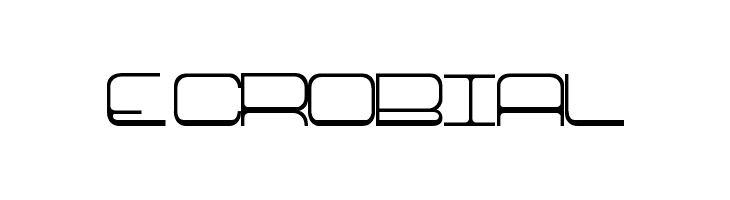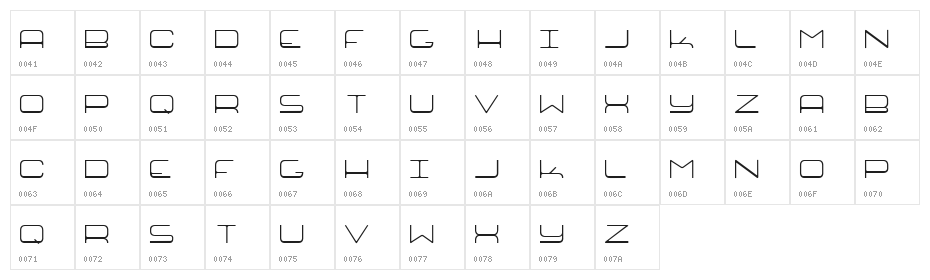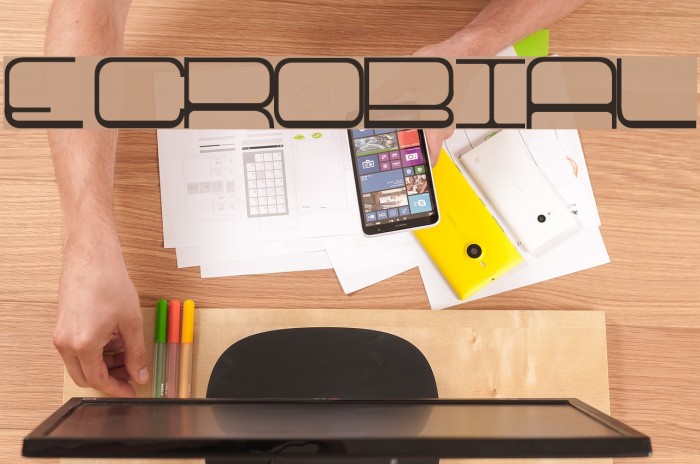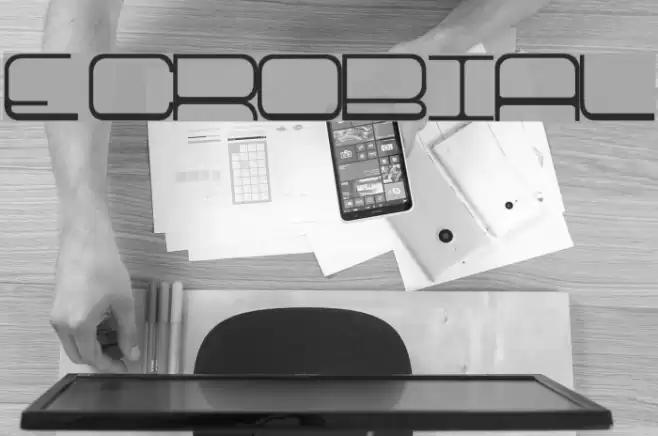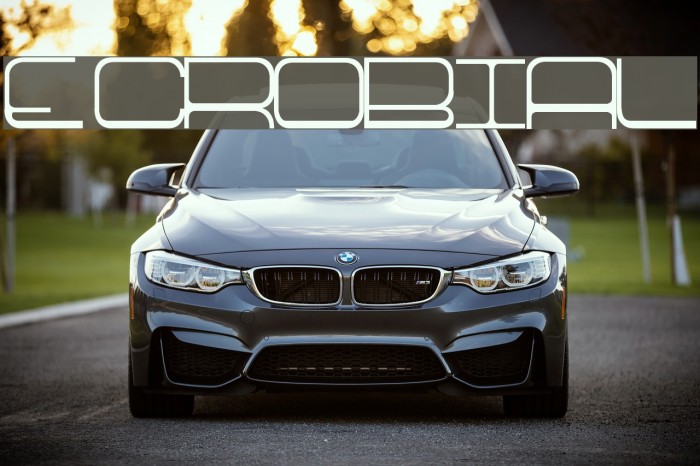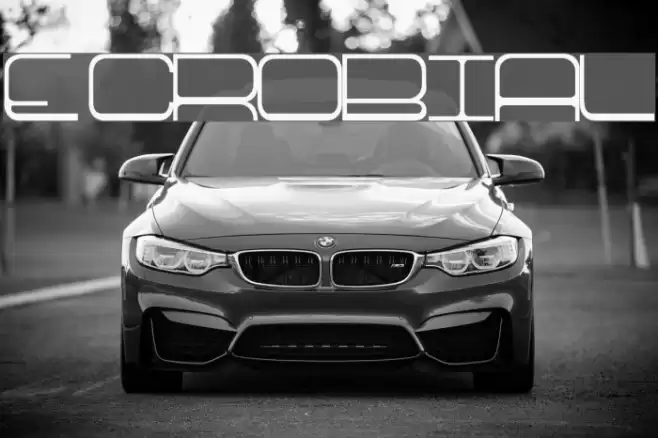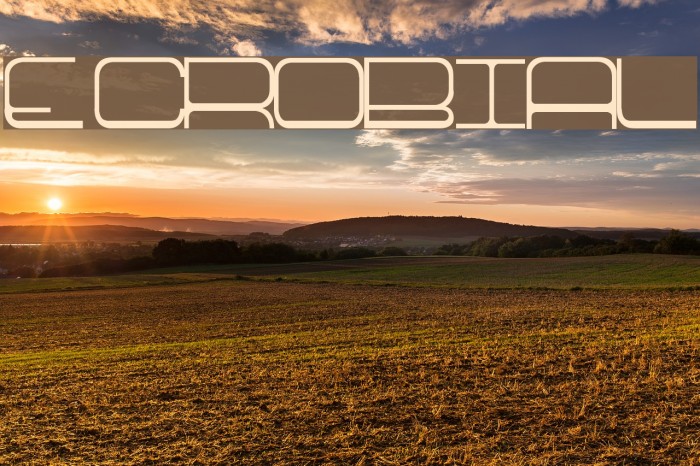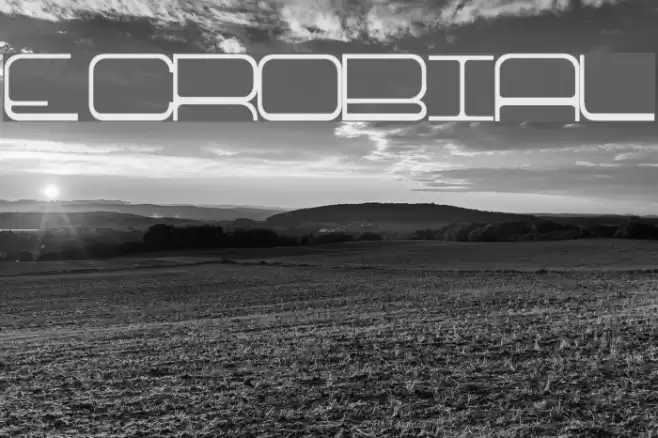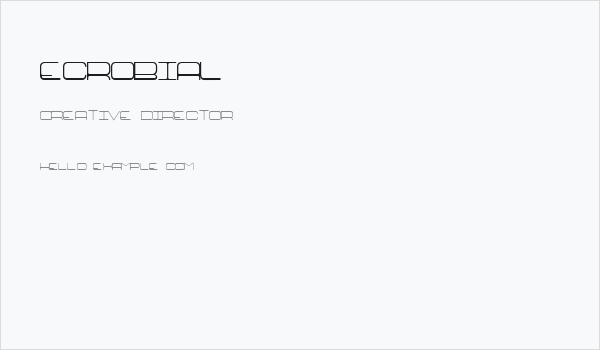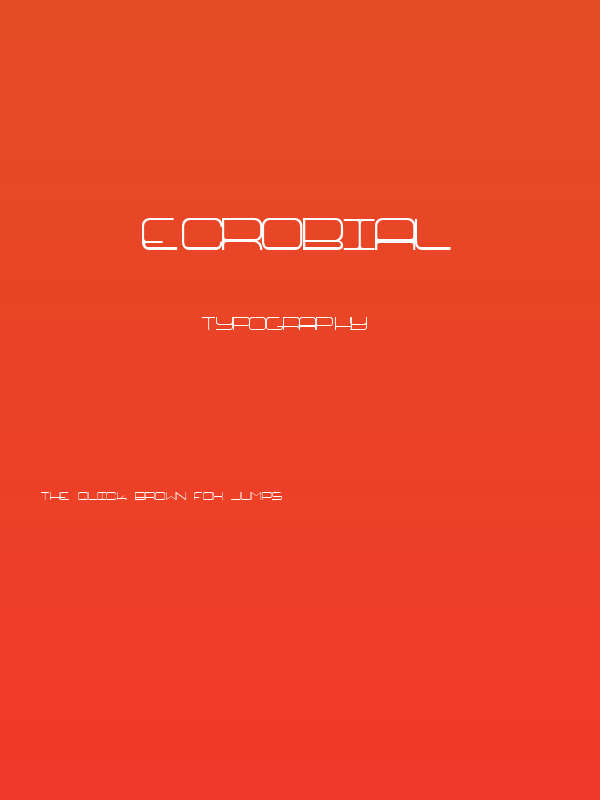
ECROBIAL Font
ECROBIAL Description
This font features a modern, geometric design with a minimalist aesthetic. The characters are constructed with clean, straight lines and sharp angles, giving it a futuristic and technical appearance. The uppercase letters are uniform in height, while the lowercase letters maintain a consistent style that complements the uppercase set. The numerals and special characters follow the same design principles, ensuring a cohesive look across all glyphs. The font's simplicity and clarity make it suitable for digital interfaces and contemporary branding projects.
| Use Case | Logos, Headlines, Digital Interfaces |
| Proposed Projects | Ideal for tech branding, digital interfaces, and modern advertising campaigns. |